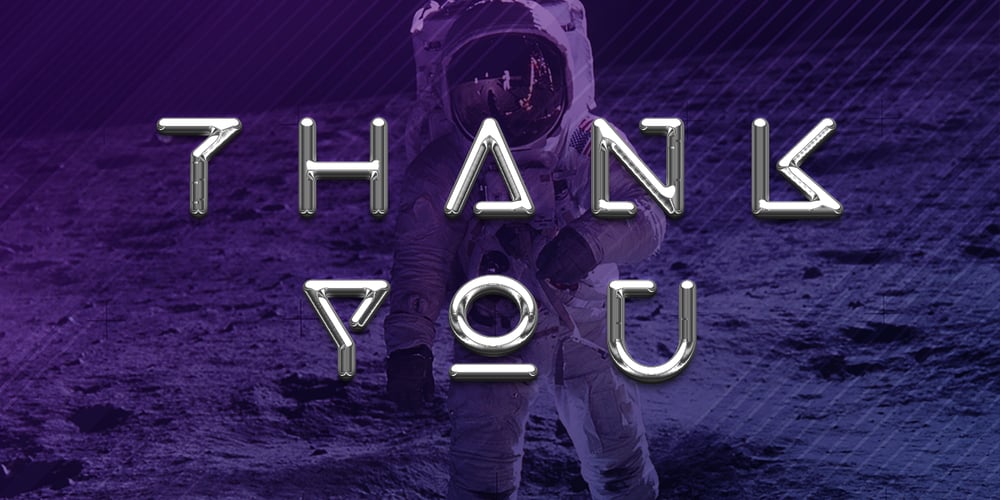
Exarros
Exarros font
Exarros Font Family was designed by Arif Dwi and published by Kotak Kuning Studio. Exarros contains 4 styles and family package options. Exarros is a unique and futuristic sans serif font family. The combination of futuristic and geometric elements renders a modern design. Exarros includes 4 fonts family with futuristic caps, thereby creating more variability. This font is suitable to use as a logotype, product designs, label, watermark, social media posts, apparel, invitation, signboard, sports club, motor/car, special events or anything that need handwriting taste. Exarros is encoded with Unicode PUA, which allows full access to all additional characters without having special design software. Mac users can use Font Book, and Windows users can use Character Map to view and copy one of the extra characters to paste into your favorite text editor/application. We hope you enjoy the font, please feel free to comment if you have any thoughts or feedback. Or simply send me a PM or email me at kotakkuningstudio@gmail.com. Thanks for purchasing and have fun!